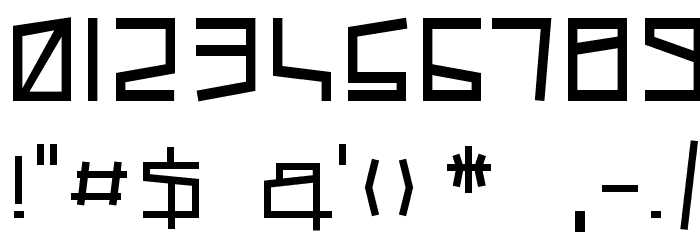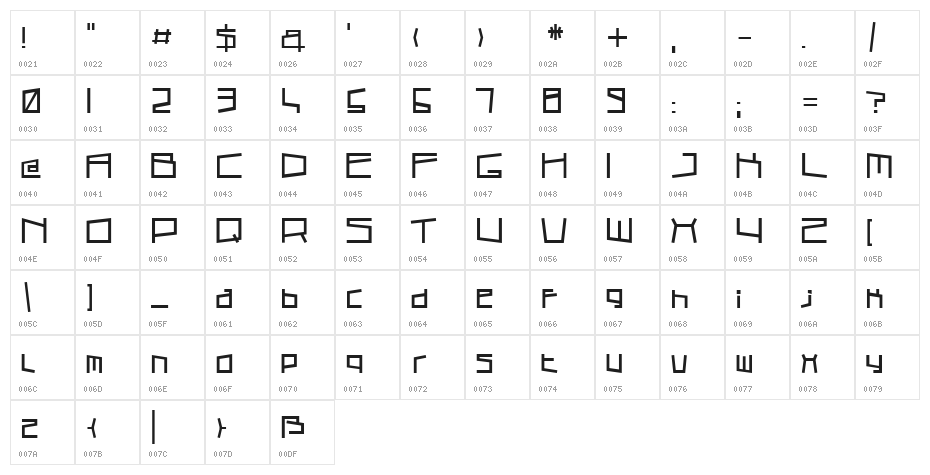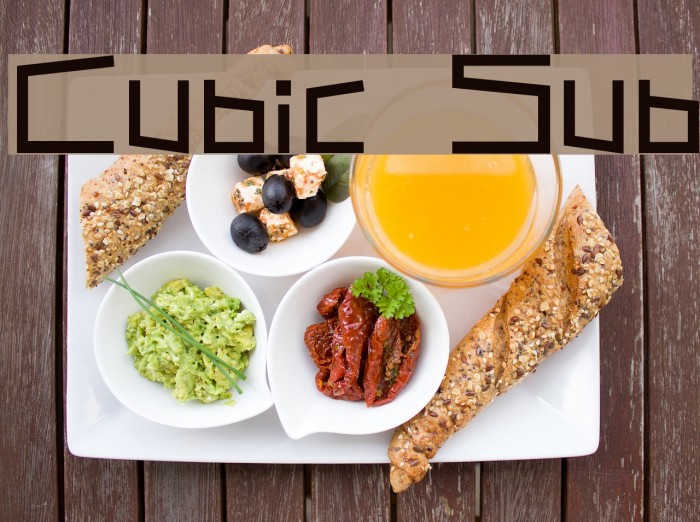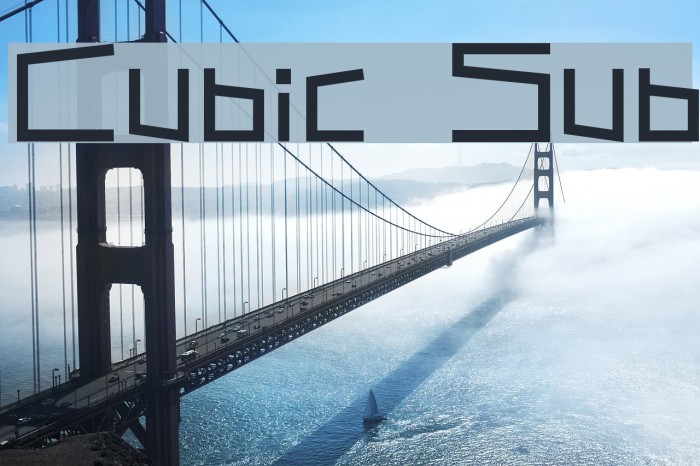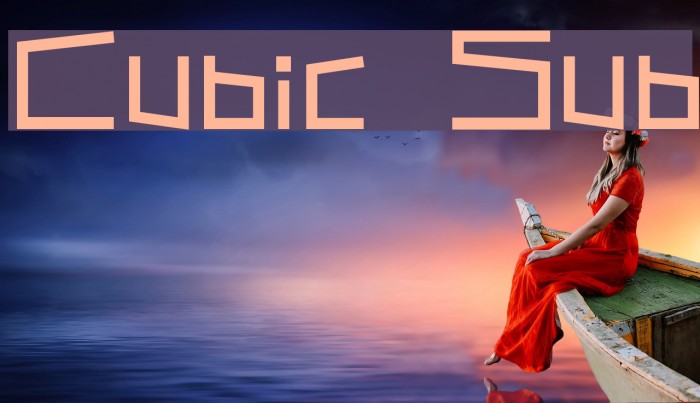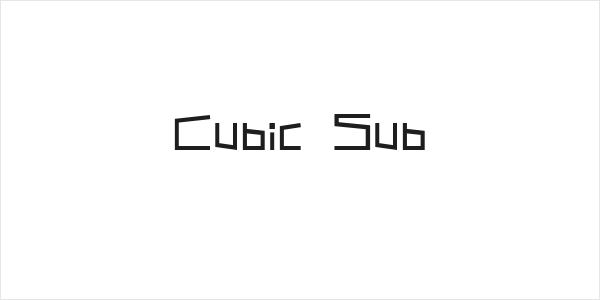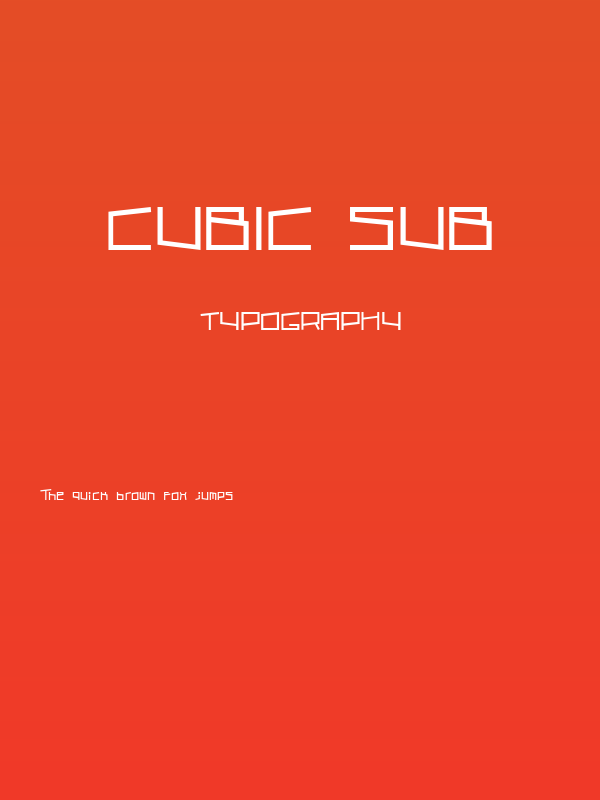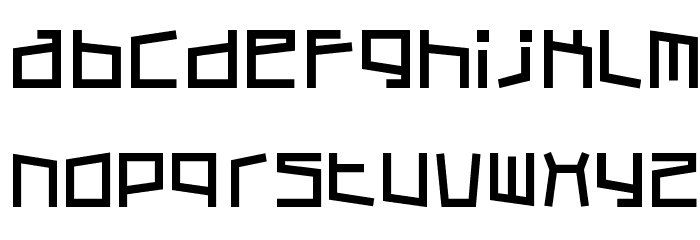
Cubic Sub Font
Cubic Sub Description
This font features a geometric, cubic design with sharp angles and a futuristic aesthetic. The characters are constructed with straight lines and right angles, giving them a blocky and structured appearance. The uppercase and lowercase letters maintain a consistent style, with a uniform height and width that enhances readability. The numbers and special characters follow the same design principles, ensuring a cohesive look across all elements. This font's unique style makes it stand out, offering a modern and edgy vibe suitable for various creative applications.
| Proposed Projects | Ideal for sci-fi themed designs, tech branding, video game interfaces, and modern posters. |